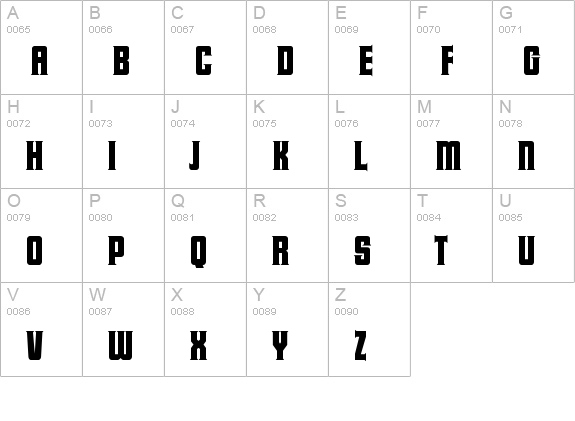
GaberBold Font Details
Introducing GaberBold - a bold and versatile font that commands attention with its strong yet elegant presence! Designed with utmost precision, this remarkable typeface embodies a perfect balance between modernity and classic design elements. With its robust strokes and clean lines, GaberBold exudes confidence and boldness, making it the ideal choice for headlines, logos, posters, and any project that demands a captivating visual impact. Its timeless appeal ensures that your message will be conveyed with clarity and authority, leaving a lasting impression on your audience. But what sets GaberBold apart is not only its striking aesthetics but also its accessibility. We believe that creativity should be free, and that's why GaberBold is freely available to download at FontsMarket.com. Now, you can elevate your designs without any restrictions or limitations, allowing your imagination to soar. Whether you're a professional designer, a student, or simply someone with a passion for typography, GaberBold empowers you to effortlessly bring your ideas to life. Its wide range of characters and extensive language support allows you to communicate effectively across various projects and platforms, ensuring that your message is understood by audiences around the world. Embrace the power of GaberBold and transform your designs into captivating masterpieces. With its boldness, versatility, and the freedom to download it for free at FontsMarket.com, this font is a must-have in every designer's toolkit. Elevate your creativity and make a statement that resonates with the world - with GaberBold, the possibilities are endless.